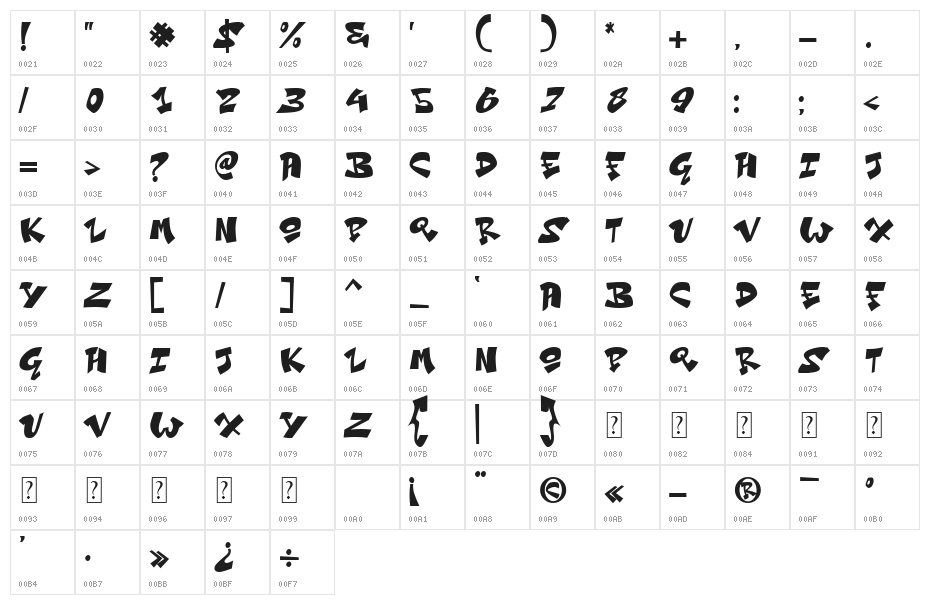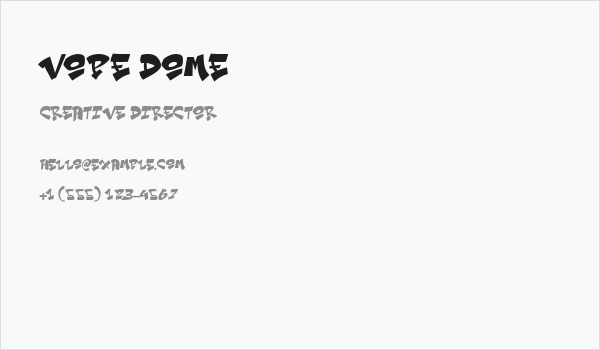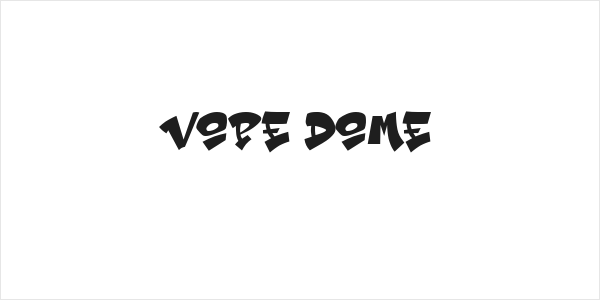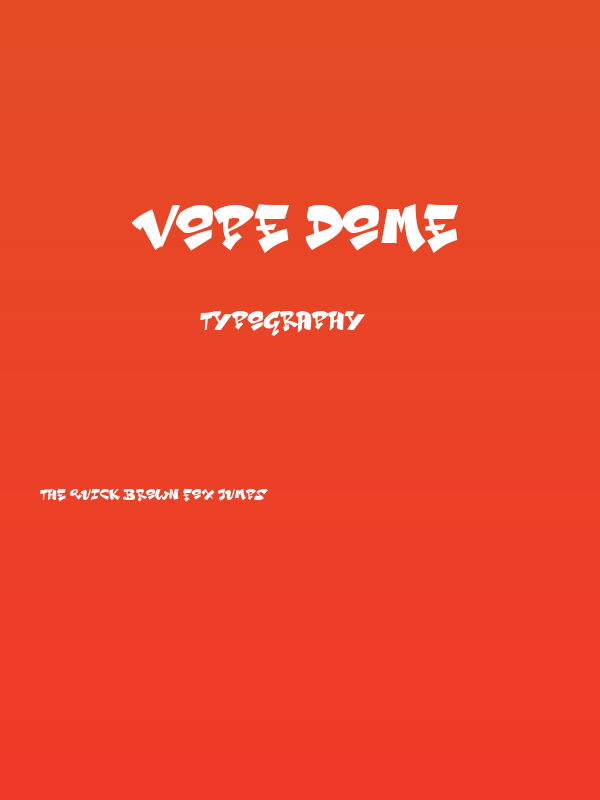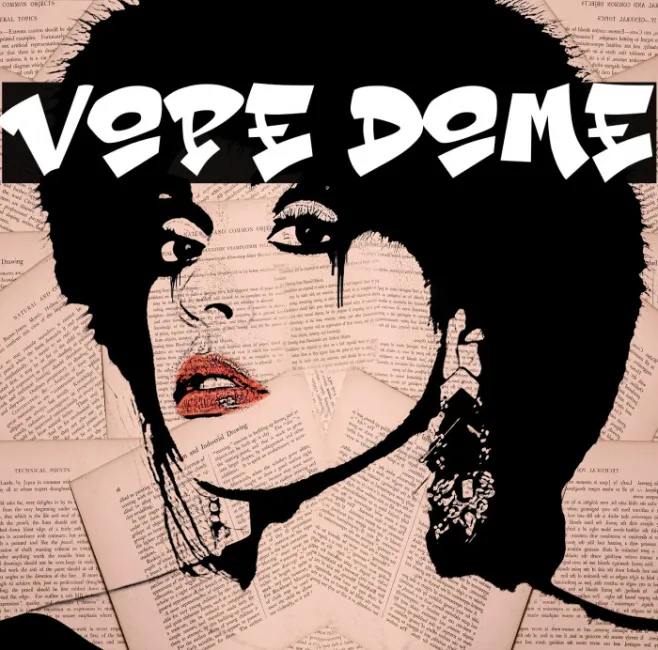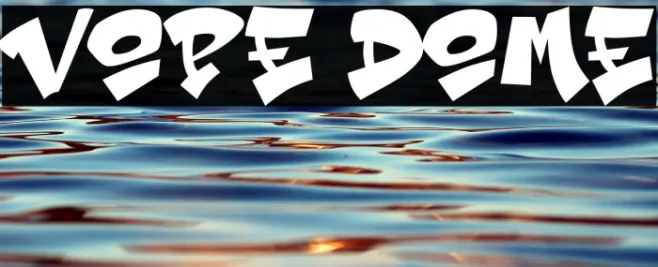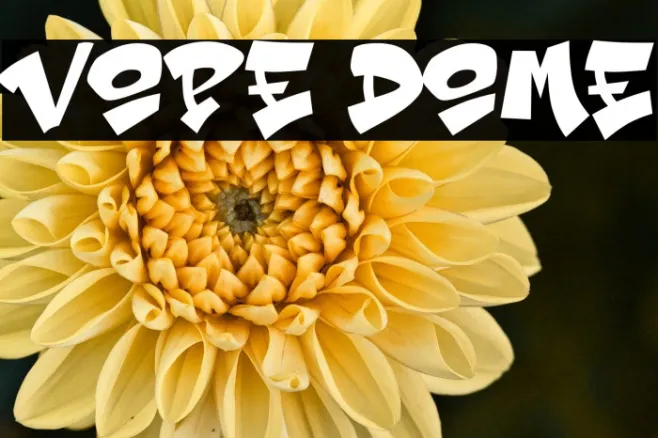
Vope Dome Font
Vope Dome Description
This font features a bold, dynamic style with sharp angles and a graffiti-like appearance. The characters are heavily stylized, with exaggerated curves and edges that give a sense of movement and energy. The uppercase and lowercase letters maintain a consistent design, enhancing the overall cohesiveness. Numbers and special characters follow the same bold and edgy aesthetic, making them stand out. The font's unique style is eye-catching and suitable for projects that require a strong visual impact.
| Overall Style | Modern, Urban |
| Proposed Projects | Ideal for street art designs, music album covers, urban-themed posters, and edgy branding projects. |